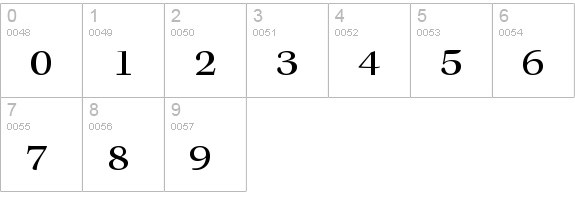
Kepler Std Extended Font Details
Kepler Std Extended is a distinctive, extended-width variant in the Kepler typeface family \xE2\x80\x94 well suited to design and typography projects.
Kepler Std Extended is a versatile and elegant font that brings sophistication and clarity to any project. With its extended form, this font offers a heightened sense of refinement and professionalism, making it perfect for a wide range of applications. Designed with precision and attention to detail, Kepler Std Extended showcases clean lines and balanced proportions, creating a harmonious visual experience for readers. Its extended character set allows for enhanced versatility, enabling designers to effortlessly communicate their messages across various mediums. This font is ideal for use in editorial design, branding, advertising, and much more. Whether you're working on a magazine layout, corporate identity, or digital campaign, Kepler Std Extended ensures that your typography stands out and captivates audiences. One of the most appealing aspects of Kepler Std Extended is that it is available for free download at FontsMarket.com. This means that designers and creatives can access this premium font without any cost, making it an incredible asset for both personal and commercial projects. So, if you're looking for a font that combines elegance, versatility, and the added benefit of being free, look no further than Kepler Std Extended. Download it now from FontsMarket.com and elevate your designs to a whole new level of sophistication.